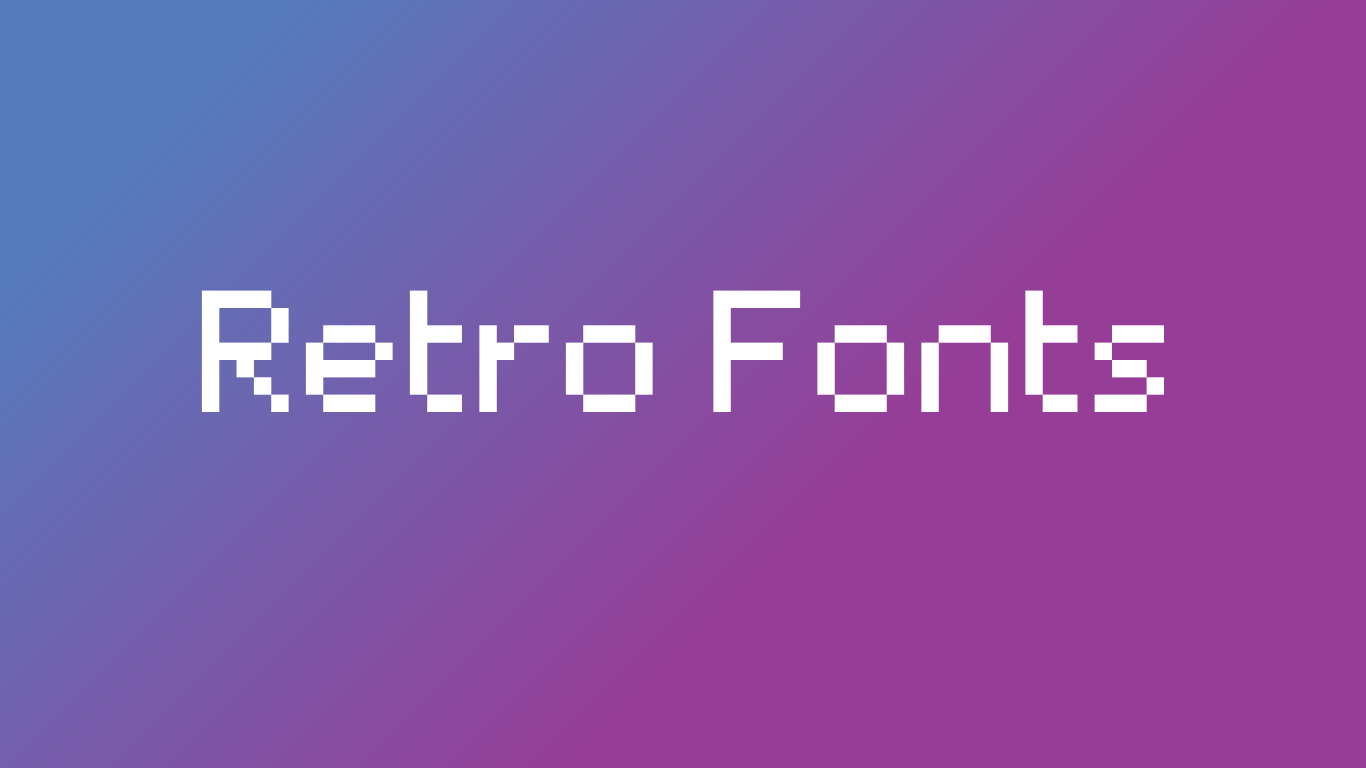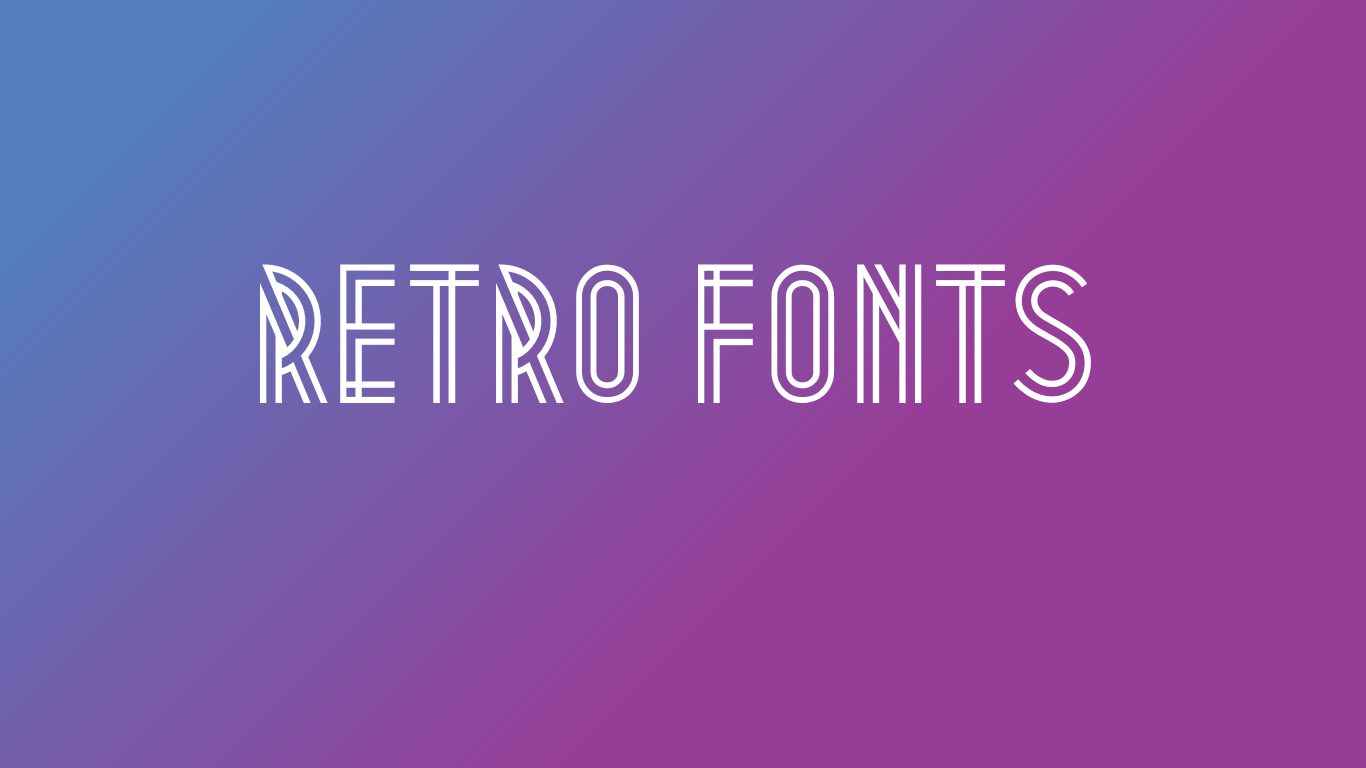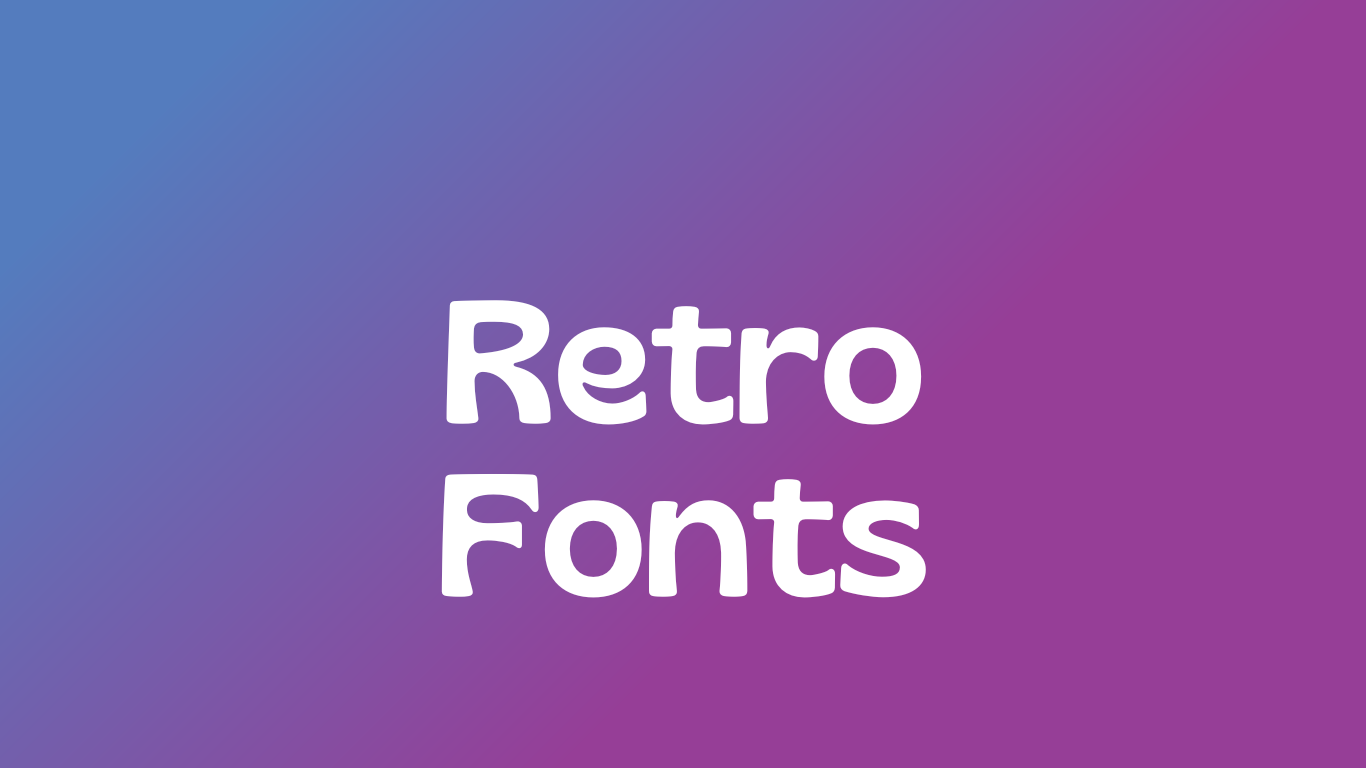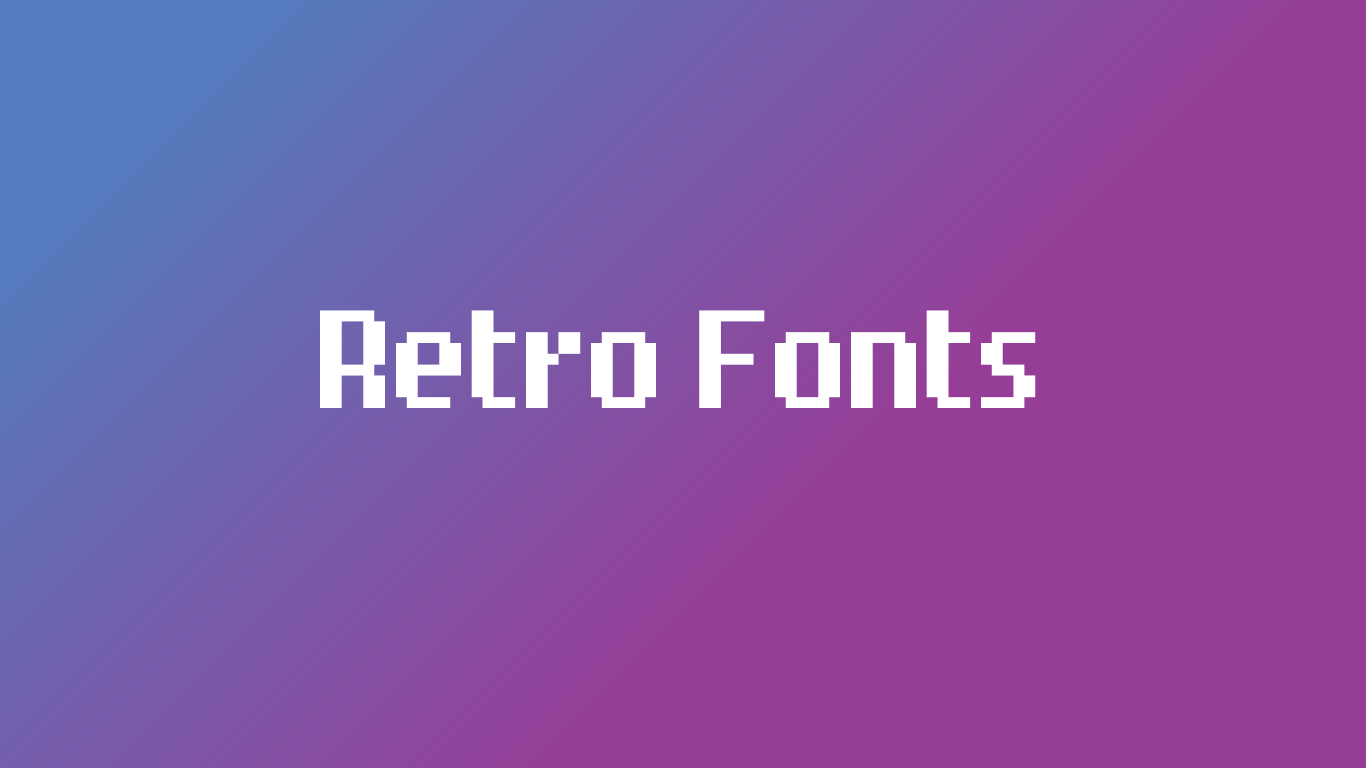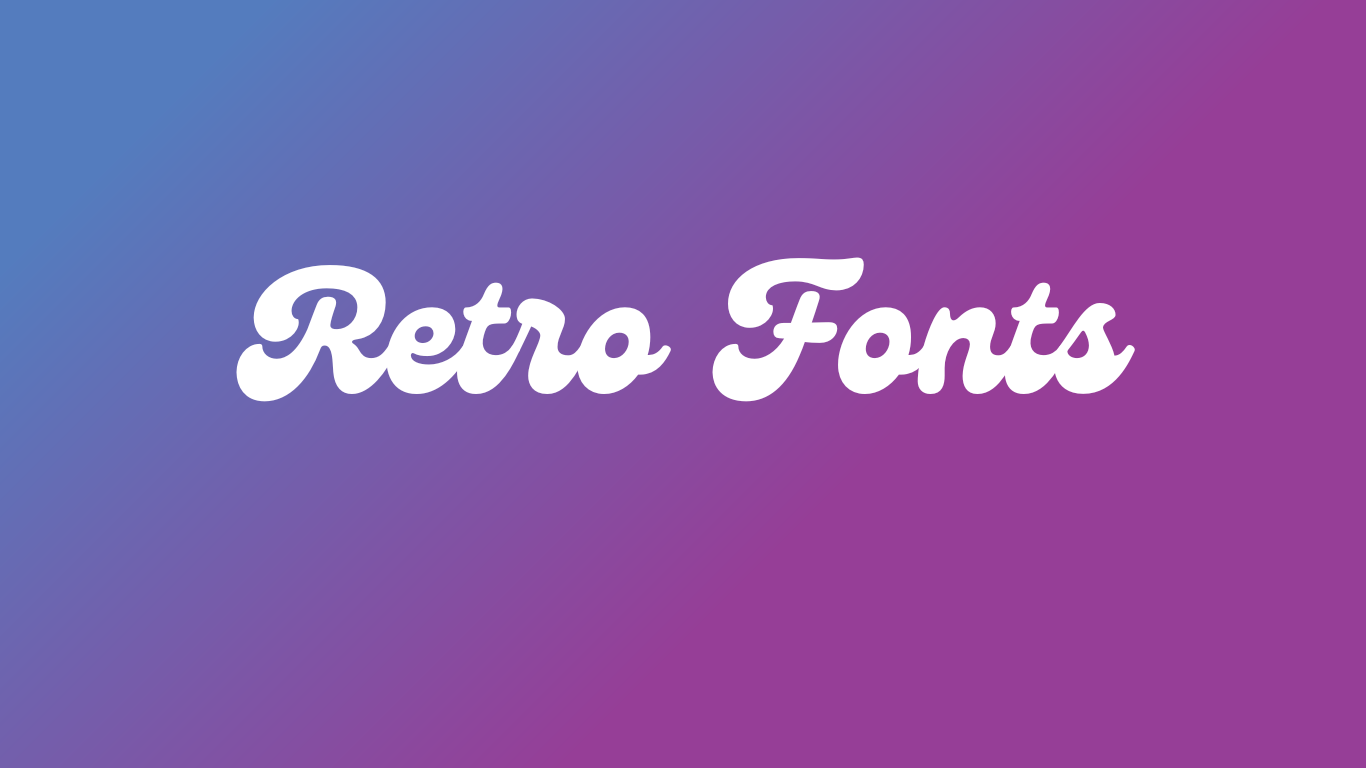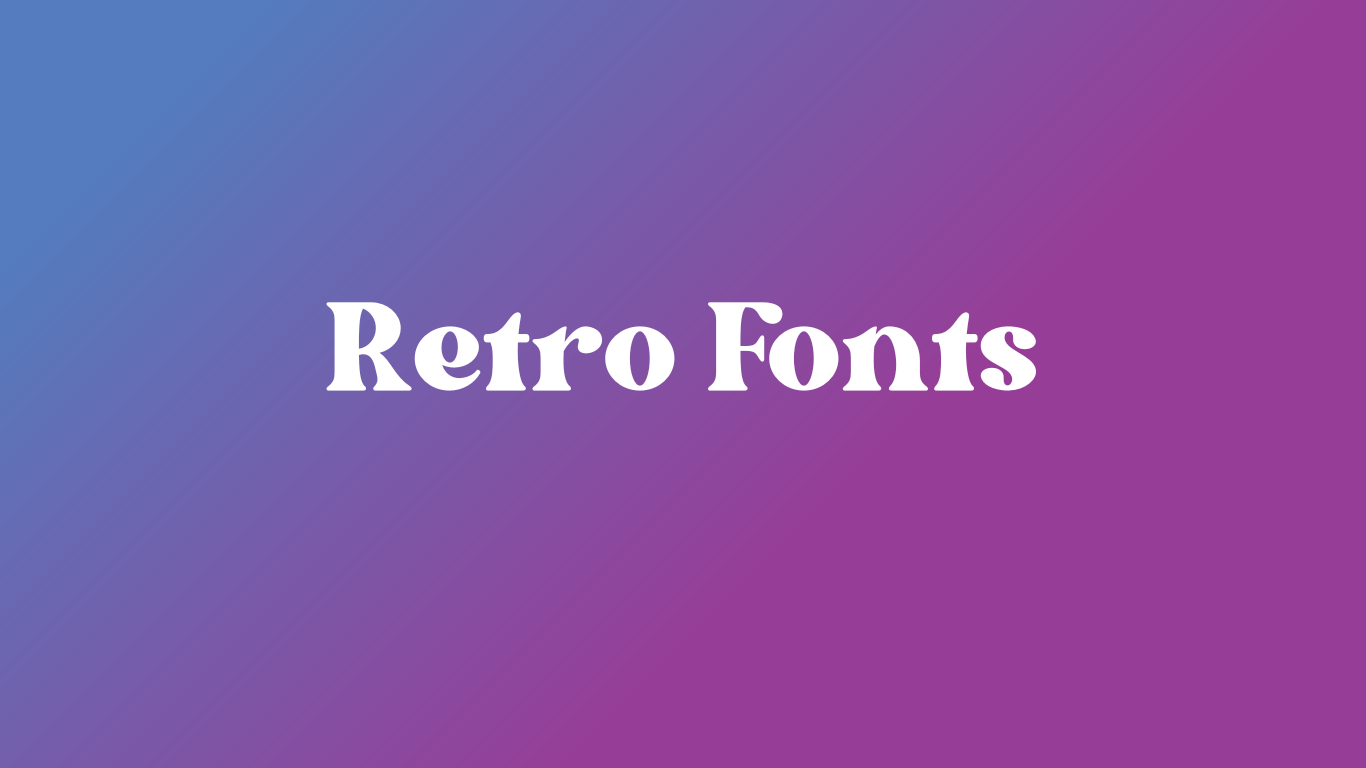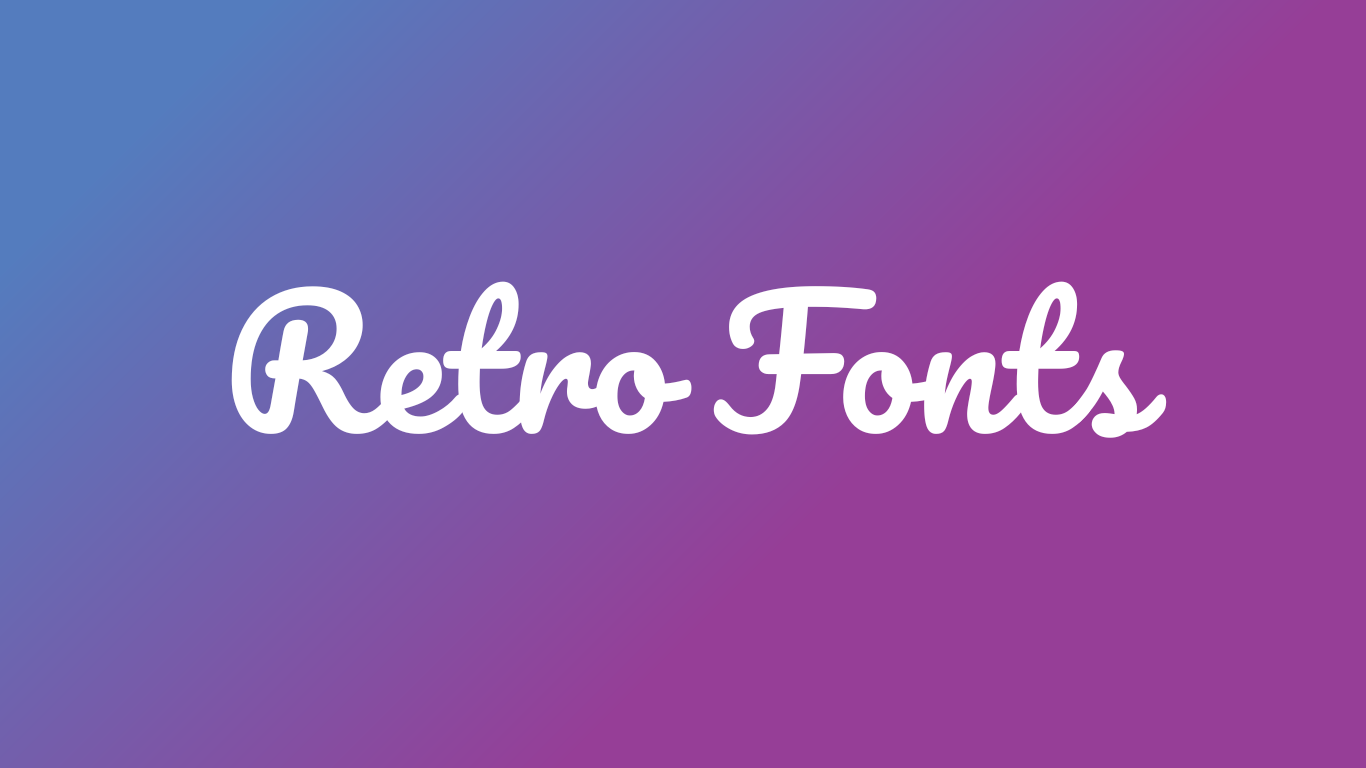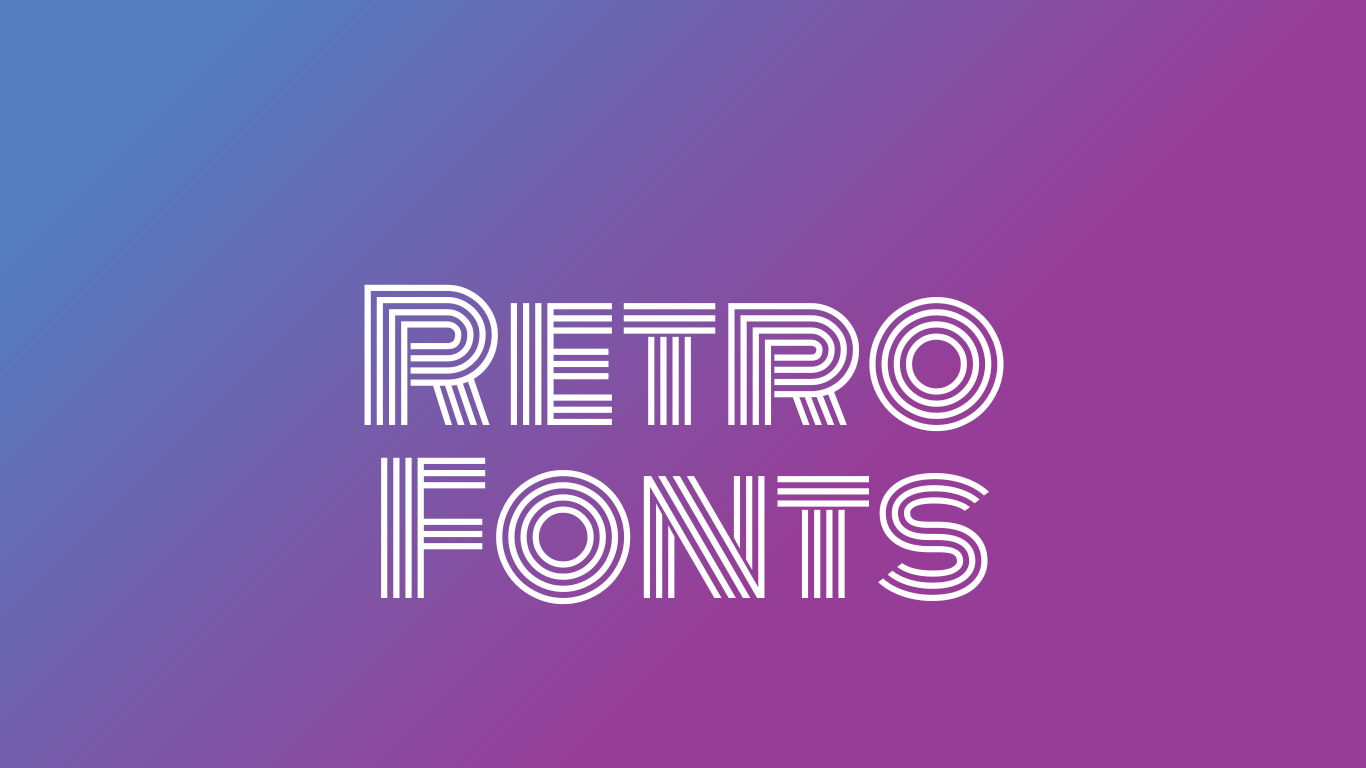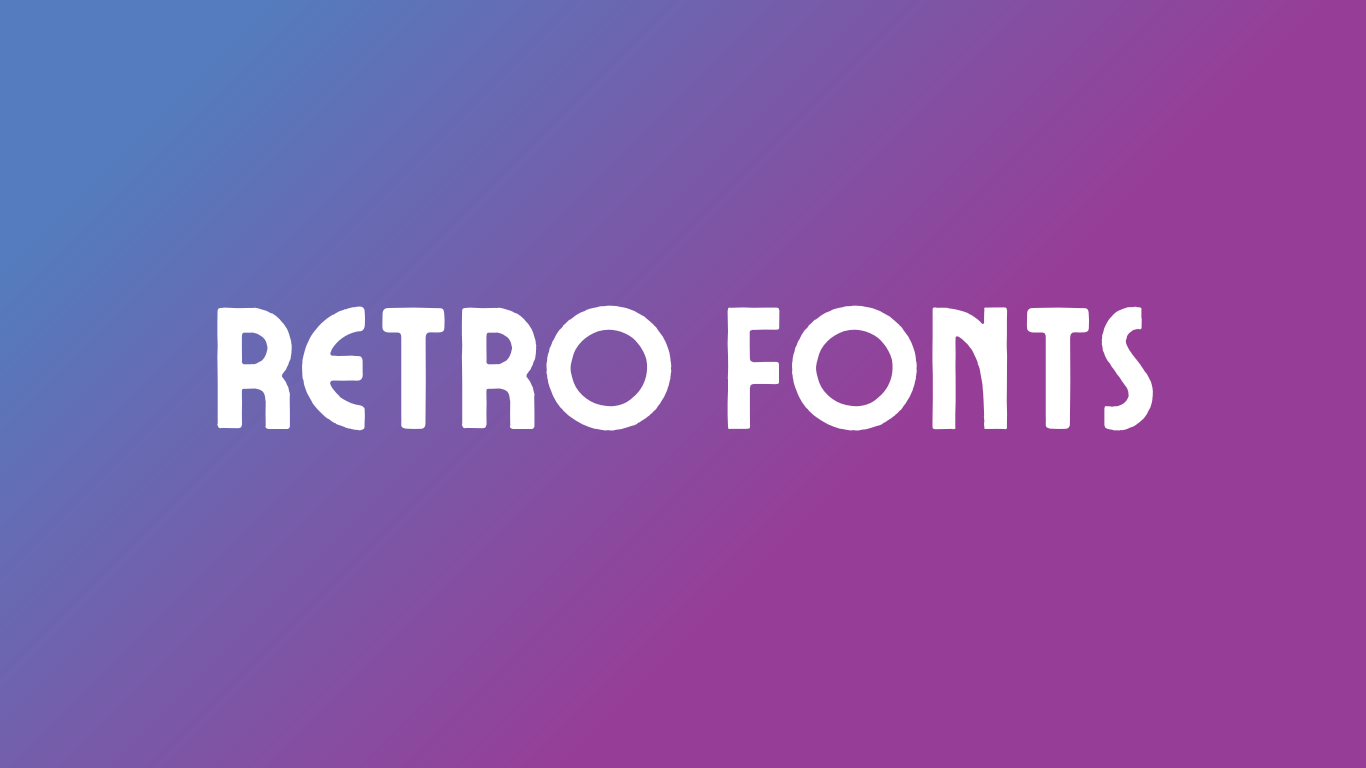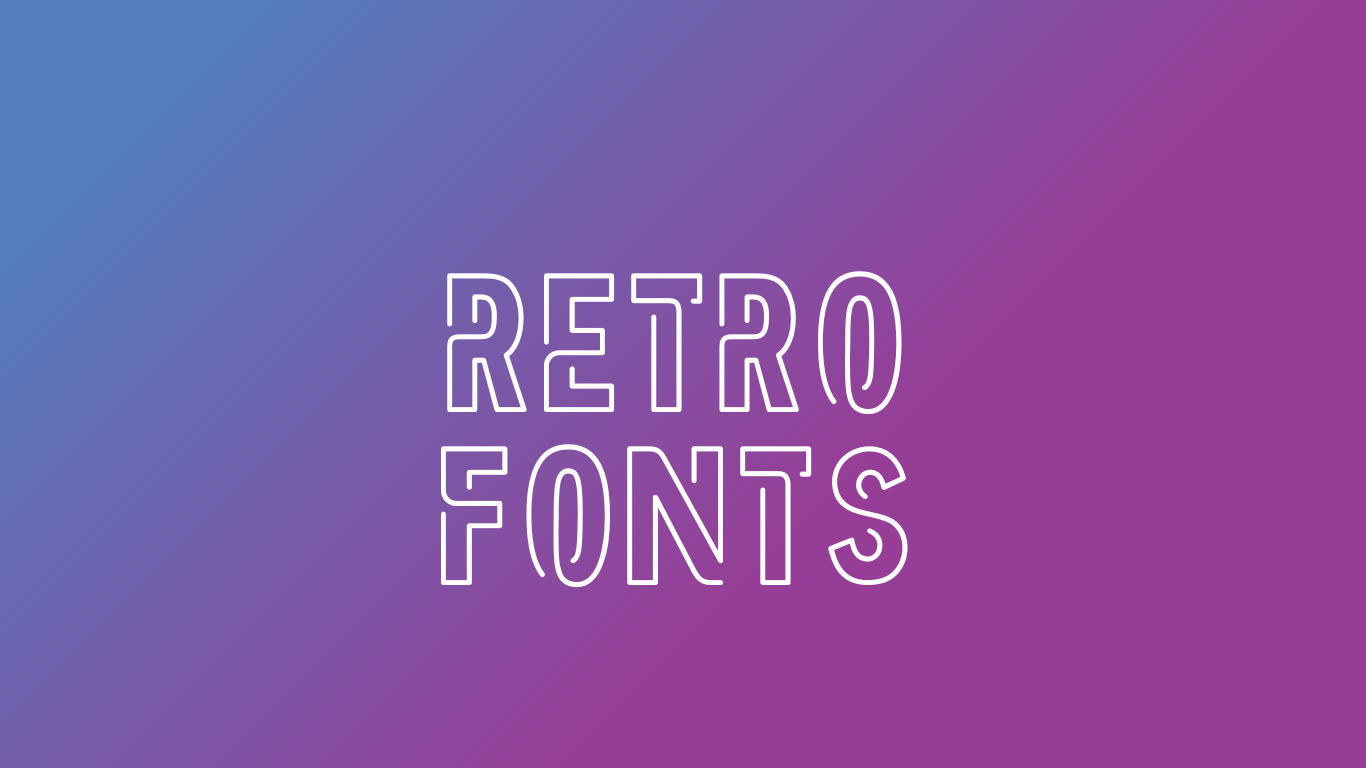
Bring The Groove with 10+ Best Retro Font Canva Free
Creative industry trends keep returning to the past, now and then. You will easily spot them happening across the graphic design industry, where the usage of vintage and retro fonts strikes. As you use Canva for your visual designs, you can access an extensive free retro font Canva collection.
Let’s dig out the retro font you can use to decorate your Canva visual design down below!
10+ Idyllic Free Retro Font Canva
The charm of retro fonts is that seemingly-handwritten strokes make the fonts feel more personal and human. It also brings out groovy and lively vibes. Hence, not only eligible for quotes, posters, and packaging design, this type of font will make the signs, labels, and event invitation design more impressive.
So if you’re looking for any recommendations, this article will list ten free retro fonts on Canva. Let’s find your preferred font in the list below now!
1. Retropix
Retro Fonts Canva
As oldies it can be, with a pixelated appearance, Retropix can give an old-fashioned version of Pacmaan video-game nuance to various graphic designs. Not only is it the actual retro font, but also it is free in Canva.
2. Genty
Genty Fonts Canva
Genty is one of the typical flowy and chunky tilting style fonts retro in Canva. This font can add an energetic vibe to the message you want to spread through diverse kinds of visual material.
3. Bright Retro
Bright Retro Fonts Canva
In addition to a slightly curvy style, Bright Retro has that spiky edge in each numbering, alphabet, and character it has. Those characteristics reveal a bit of modern touch to the retro feel, making this a distinctive retro font you can use for branding purposes.
4. Pacifico
Pacifico is the right choice if you want to give your designs a strong nostalgic feel. It has a similar stroke to the handwriting styles from the 50s to 60s, with a more wavy and slender build. Therefore, Pacifico would work for a culinary and fashion brand.
5. Monoton
Monoton Fonts Canva
Get to work on posters? Monoton could be your perfect choice, especially if you want to use that 80s energy! This free retro font Canva has that hypnotic element in its build. Yet, its thick shape makes it a more visible and exciting choice for headlines or titles.
6. Lucidity Condensed
Lucidity Fonts Canva
Lucidity Condensed is another font with an 80s vibe in Canva. But, some of the elements that set it apart from others are its bold and thick shape in a straight-line build. Those aspects bring formal touch to this retro typography.
7. Neoneon
Neoneon Fonts Canva
Neon box style inspires brands to create logos and posters using look-a-like fonts to make them more lively and eye-catching. Neoneon covers that need; not only is it neon-like, but the letters still are bold, making it visible yet also stylish.
8. Rustic Printed Stamp
Rustic Printed Stamp Fonts Canva
Retro font should also evoke that vintage feeling, and that is what makes handwriting or printed letters appealing.
Rustic Printed Stamp is seemingly simple in terms of lines and shapes. Besides, this decorative font takes it to another rustic level with uneven lines and fading textures like an old printed material.
9. Special Elite
Special Elite Fonts Canva
Similar to Rustic Printed Stamps, Special Elite has irregular shapes with intense line texture. What differentiates Special Elite is that it takes the form of a typewriter style. Undeniably, those traits make this font retro Canva an attractive choice for designing stationeries, book covers, to posters.
10. Metropolis
Metropolis Fonts Canva
A Serif font that should make it to your retro font collection is Metropolis. This font has both a modern industrial and classic vibe since it was inspired by no other than the typography of the 20s and 30s in industrial theme. These attributes make it versatile for your headlines, displays, or even body text.
Bonus of Collections
You may not have an eye on the previous lines, so below are the bonuses you may find:
1. Gliker
Gliker Fonts Canva
Gliker may look modest and less decorative compared to other retro font choices you have here. However, those rounded and plumpy shapes leave it as a dashing font option for animation and/or amusing graphical design projects.
2. FS Gravity
FS Grafity Fonts Canva
Need a broader spectrum of pixelated typography? FS Gravity is an attractive choice. Compared to the first mentioned in the list, this font has a lot thicker lines with proper spacing between each of its characters and letters. Its thickness and spacing make FS Gravity more readable yet entertaining, especially as a header.
Which Retro Font Canva is Your Favorite?